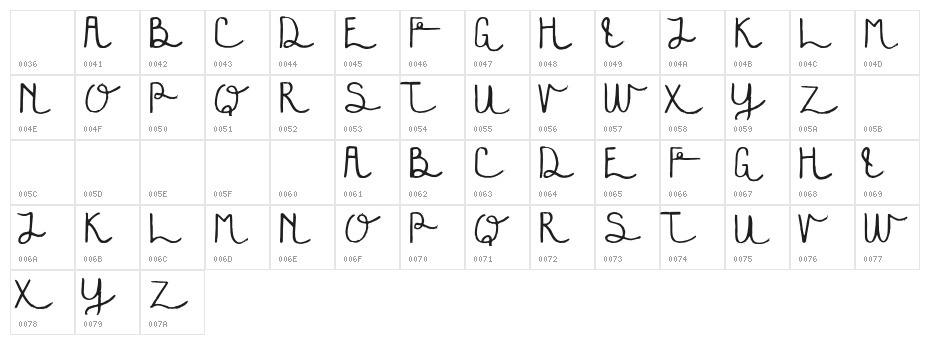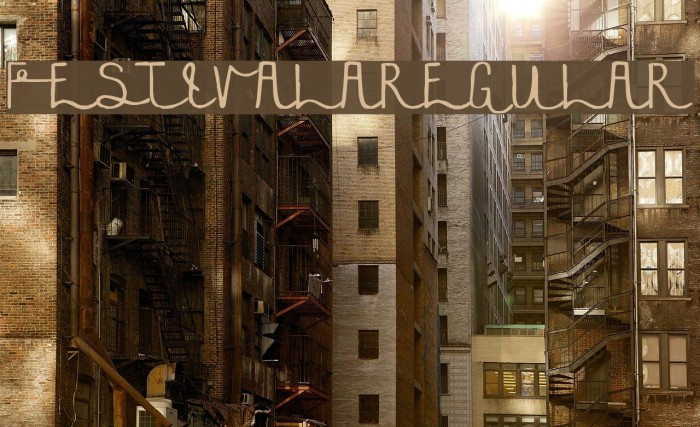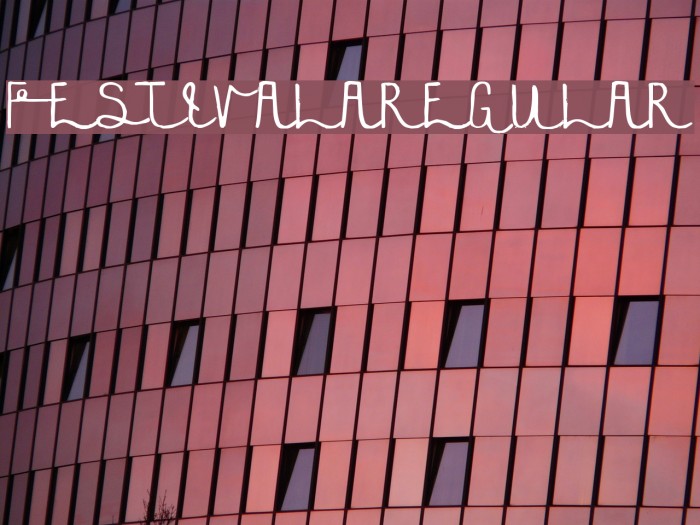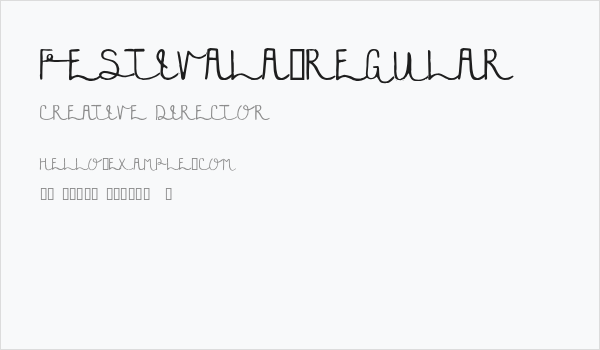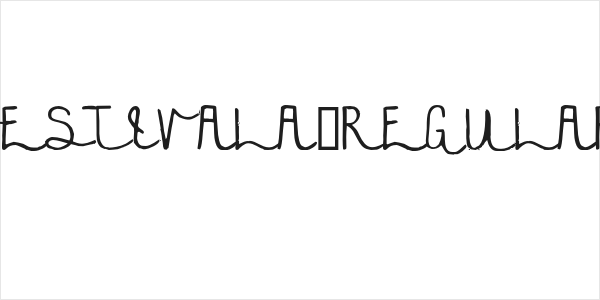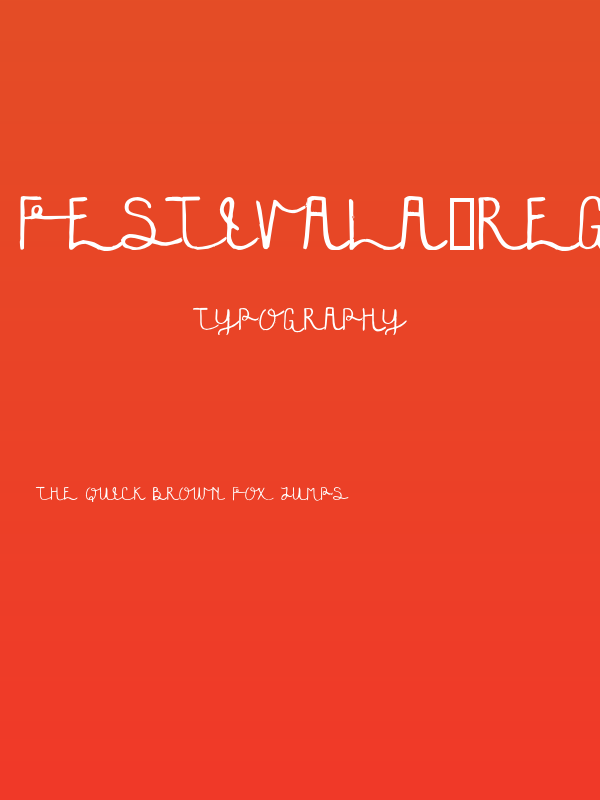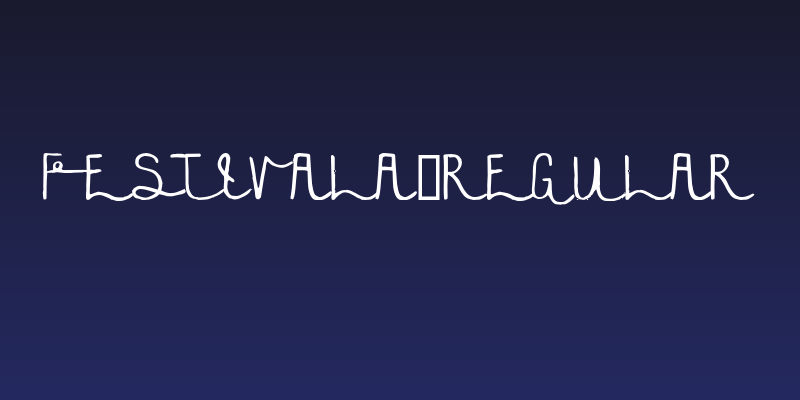
festivala-Regular Font
festivala-Regular Description
This font features a playful and whimsical script style with a hand-drawn appearance. The characters are connected with smooth, flowing lines that give it a casual and friendly feel. The uppercase and lowercase letters maintain a consistent style, with slight variations in stroke width that add to its charm. The font's unique character is further enhanced by its decorative elements, such as loops and curls, which make it stand out. It is well-suited for creative projects that require a personal touch, such as invitations, greeting cards, and artistic designs.
| Use Case | Headlines, Artistic designs, Invitations |
| Proposed Projects | Ideal for invitations, greeting cards, artistic designs, and creative branding. |